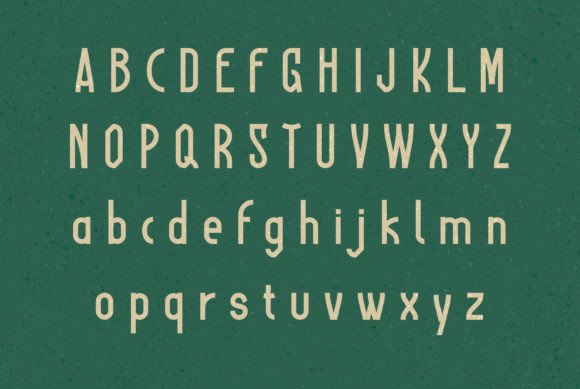
Brondan Sx Font: Elevate Your Designs with Elegance
In the world of typography, fonts play a crucial role in conveying the tone and personality of a brand or design. Among the numerous fonts available, Brondan Sx Font stands out for its elegance and versatility. Designed by Morisco Studio, this font offers three distinct styles: light, regular, and bold, making it an excellent choice for various projects, including branding, print templates, logos, and more.
What is Brondan Sx Font?
Brondan Sx Font is a modern, elegant font designed by Morisco Studio. It comes in three styles: light, regular, and bold, providing flexibility and variety for designers. The font’s sleek lines and sophisticated appearance make it suitable for projects that require a touch of elegance and professionalism.
Key Features of Brondan Sx Font
- Elegant Design: Brondan Sx Font boasts a sleek and sophisticated design, perfect for creating visually appealing content.
- Three Styles: The font comes in three styles: light, regular, and bold, allowing designers to choose the perfect style for their project.
- Versatility: Brondan Sx Font is suitable for a wide range of projects, including branding, print templates, logos, and more.
- High-Quality: The font is designed with high-quality craftsmanship, ensuring that it looks great in any context.
Ideas for Using Brondan Sx Font
Brondan Sx Font is a versatile font that can be used in various projects. Here are some ideas to get you started:
- Branding: Use Brondan Sx Font to create a professional and elegant brand identity, including logos, business cards, and letterheads.
- Print Templates: The font is perfect for creating print templates, such as brochures, flyers, and posters.
- Logos: Brondan Sx Font’s sleek design makes it an excellent choice for creating logos that require a touch of sophistication.
- Web Design: The font can also be used in web design, particularly for headings, titles, and other display text.
Benefits of Using Brondan Sx Font
Using Brondan Sx Font in your designs offers several benefits, including:
- Unique Look: The font’s elegant design ensures that your designs stand out from the crowd.
- Flexibility: The three styles of Brondan Sx Font provide flexibility and variety, allowing you to choose the perfect style for your project.
- Professionalism: The font’s sophisticated appearance conveys professionalism and expertise, making it perfect for projects that require a high level of polish.
- Easy to Read: Brondan Sx Font is designed to be easy to read, making it perfect for body text and other content.
Tips for Using Brondan Sx Font
To get the most out of Brondan Sx Font, here are some tips to keep in mind:
- Pair with Other Fonts: Experiment with pairing Brondan Sx Font with other fonts to create a unique and visually appealing combination.
- Use in Headings: The font’s elegant design makes it perfect for use in headings and titles.
- Experiment with Colors: Try using Brondan Sx Font in different colors to add depth and interest to your designs.
- Pay Attention to Spacing: Make sure to pay attention to spacing and kerning to ensure that your text looks professional and polished.
Brondan Sx Font is an elegant and versatile font that is perfect for a wide range of projects, including branding, print templates, logos, and more. Its sleek design, three styles, and high-quality craftsmanship make it an excellent choice for designers looking to add a touch of sophistication to their work. With its ease of use and flexibility, Brondan Sx Font is sure to become a staple in any designer’s font library.